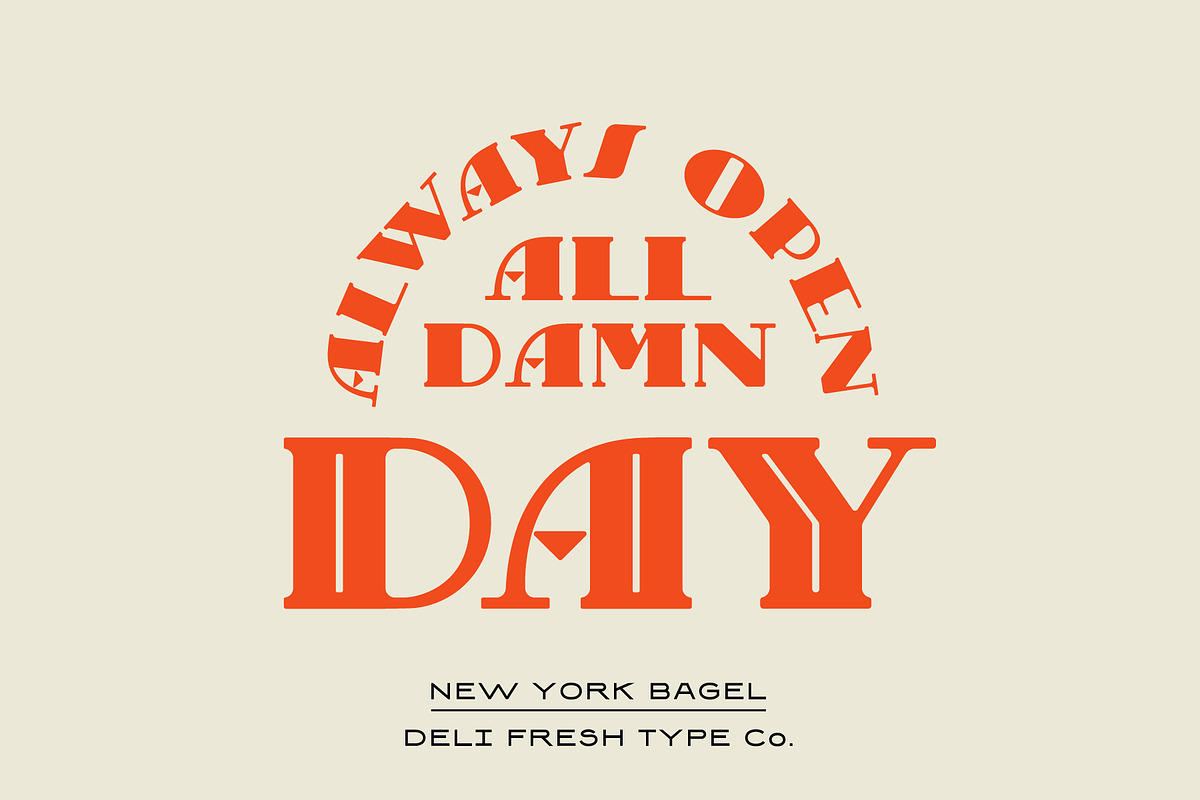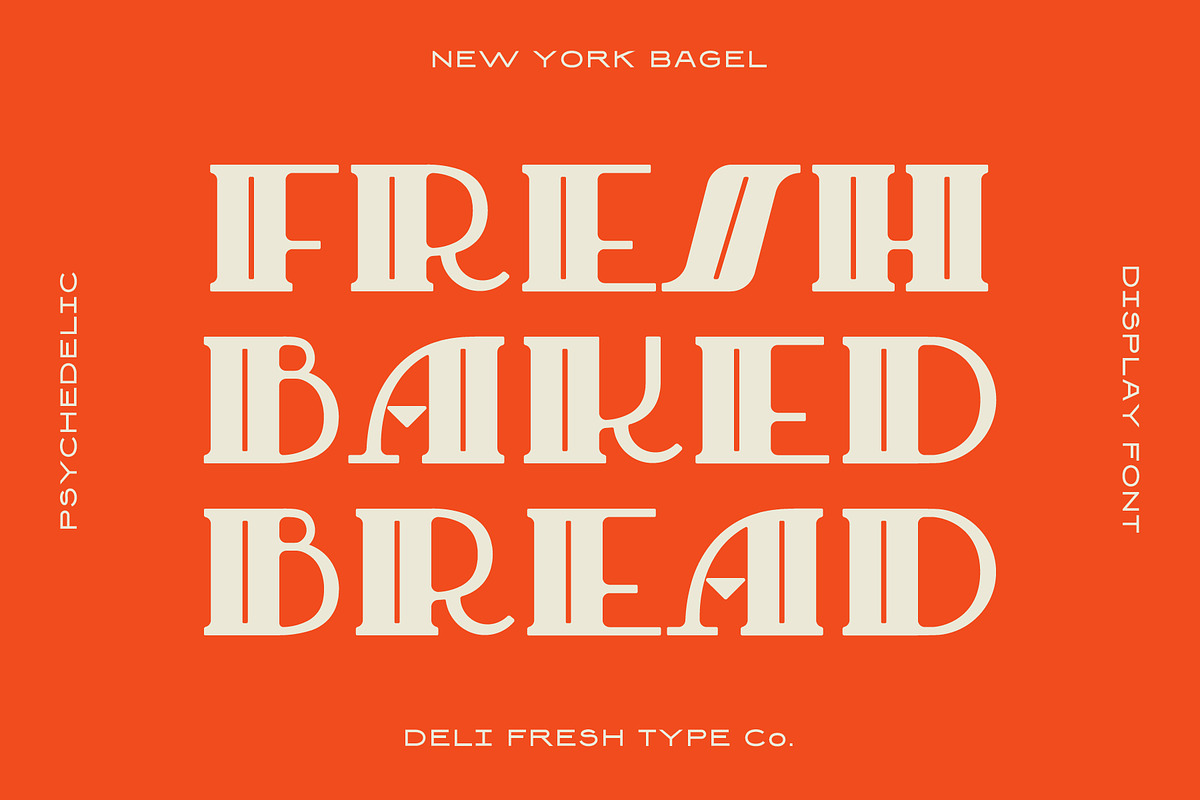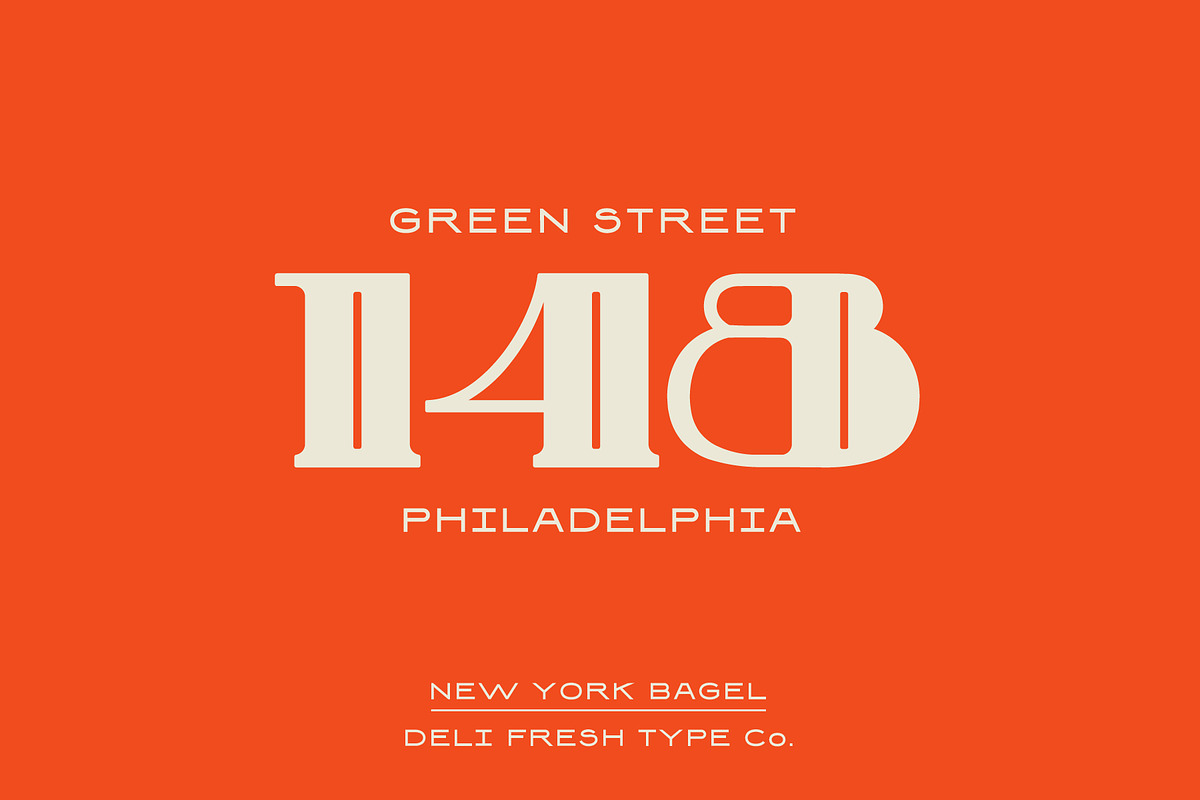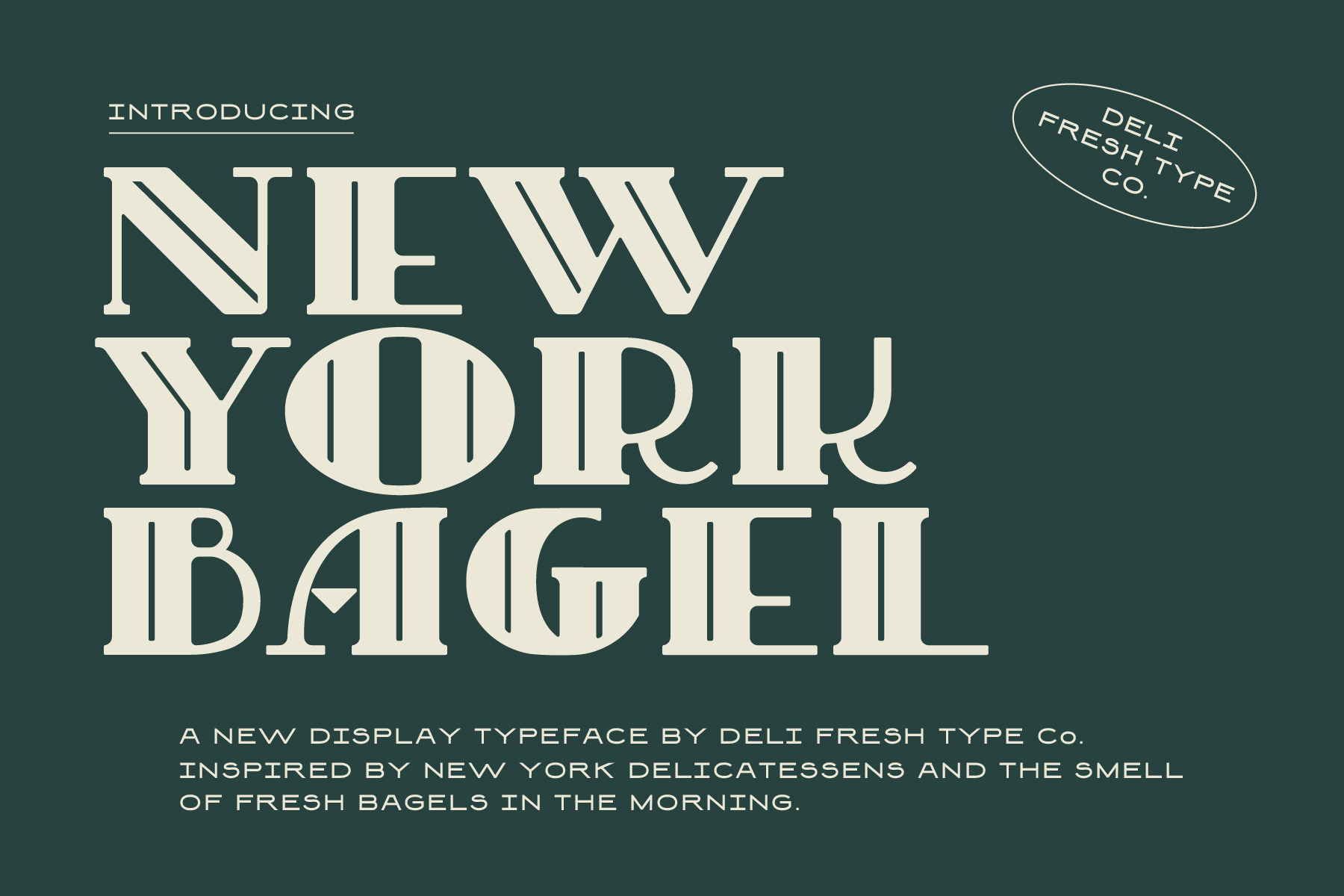
New York Bagel: A 20s Display Font
A new display typeface inspired by 1920's New York Delicatessens and the smell of fresh bagels in the morning.
Comes with capitals (with & without the inline), numerals and a smattering of special characters and punctuation marks.